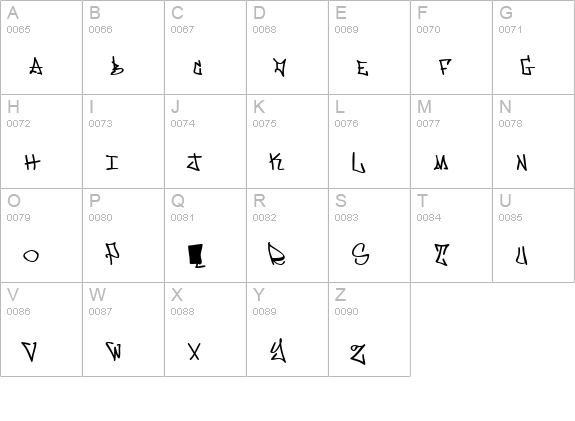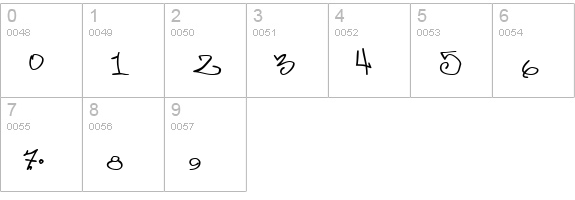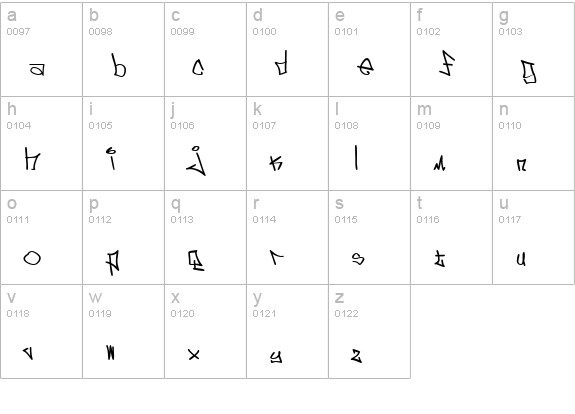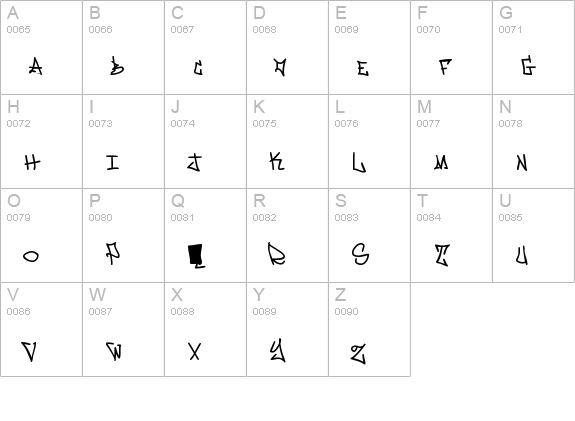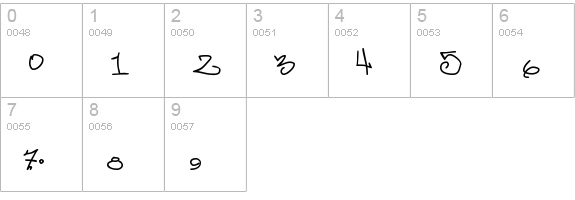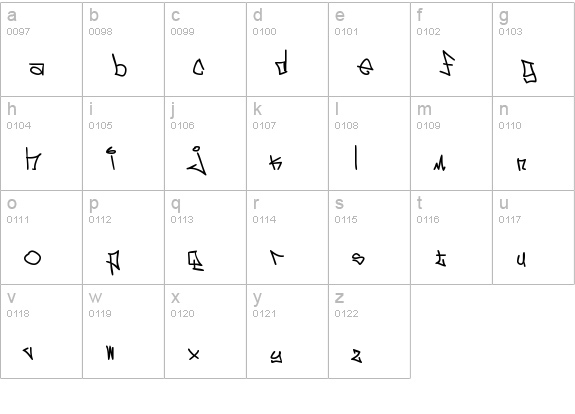
Eastside Motel Font Details
Introducing the captivating and versatile Eastside Motel font, a timeless typeface that effortlessly combines vintage charm with modern elegance. This font is a true testament to the power of typography, with its bold and distinctive letterforms that exude confidence and creativity. With its unique character and subtle retro undertones, Eastside Motel font is perfect for adding a touch of nostalgic flair to any design project. Whether you're creating eye-catching logos, designing impactful headlines, or crafting stylish branding materials, this font will elevate your work to new levels of sophistication. But what truly sets Eastside Motel font apart is its accessibility. We believe that good design should be available to all, which is why we are thrilled to offer this extraordinary font completely free of charge. Yes, you heard it right – you can freely download the Eastside Motel font at FontsMarket.com, ensuring that you can bring your creative visions to life without any limitations. Imagine the possibilities – the ability to effortlessly incorporate this stunning font into your personal or professional projects, without breaking the bank. Whether you're a seasoned designer or just starting out on your creative journey, Eastside Motel font is here to inspire and empower you. So go ahead, unleash your creativity and let Eastside Motel font guide you towards design excellence. Download it today at FontsMarket.com and unlock a world of endless possibilities. It's time to embrace the beauty of typography, and with Eastside Motel font, you can do it freely and confidently.